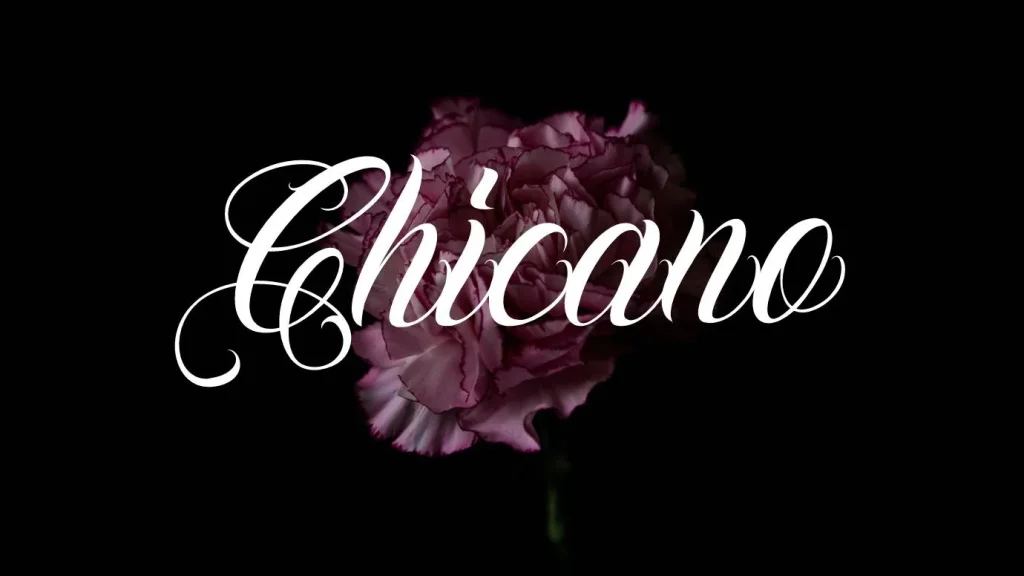
There are attractive and distinctive characters in this elegant design. This is the ideal option for creating webpage headlines, trademarks, posters,
Chicano Font is the script text style. This wonderful font has unique letters and every letter is for 1000 ems. This fantastic typeface is easy to use for both private and professional projects.
There are attractive and distinctive characters in this elegant design. This is the ideal option for creating webpage headlines, trademarks, posters, advertising, branding, and numerous other vital items.
You must try it's generating tool for the sake of creating a variety of design ideas. Articles, invoices, assignments, and other projects can get benefit from this stunning font. In different types of pages, it is widely used for headers and footers.
Description of Chicano Font By Billy Argel
The text style can be utilized for both body content and features. It’s a flexible typeface that can be utilized for a wide extent of applications such as site designs, branding, and advertising.
Reasons to Use Chicano Font
This typeface is perfect for branding projects as well as for logo design. There are countless uses for this type of lettering style, including quotes, logos, invitations, websites, and magazines. Branding can be done by using this style to improve the versatility of the task. Utilizing the adult swim font opens up possibilities for creating extraordinary designs.
In long-term projects, this typeface would be a great style that contributes to the creation of modest and appealing layouts. You can create this design with an online generator tool.
The typeface can be used for a wide range of designs, including invitations or business cards, banner ads, wedding cards, book covers, and much more. The great typeface is being used in many design projects by web and graphic designers.
Billy Argel created Chicano Font which is a unique script text style.
Of course Your logo and all other graphic design projects can be done with this font. This wonderful typeface has unique letters.